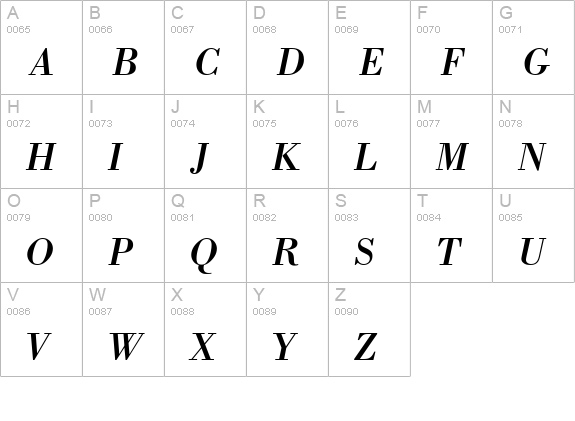
Bodoni SSi Italic is a distinctive, italic variant in the Bodoni typeface family \xE2\x80\x94 well suited to design and typography projects.
Bodoni SSi Italic font exudes elegance and sophistication with its sleek and slender design. The graceful italicized characters of this font embody a sense of refinement and class, making it a perfect choice for projects that require a touch of sophistication. The smooth curves and sharp serifs of Bodoni SSi Italic add a modern flair to any text, making it stand out with a sense of style. What's even better is that Bodoni SSi Italic font is available for free download at FontsMarket.com. This means you can easily access this stylish font without any hassle or cost. Whether you're working on a professional project or personal design, Bodoni SSi Italic font is sure to elevate your work with its timeless charm. Download it today and add a touch of elegance to your designs!